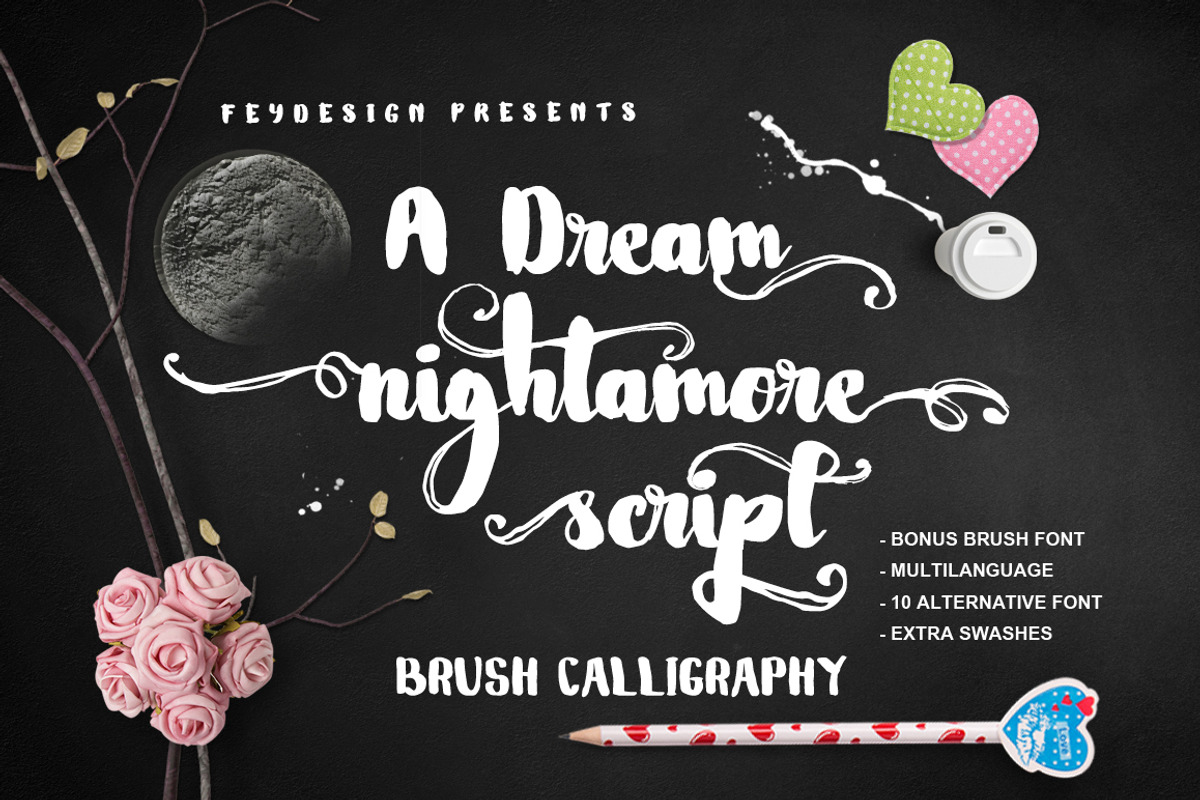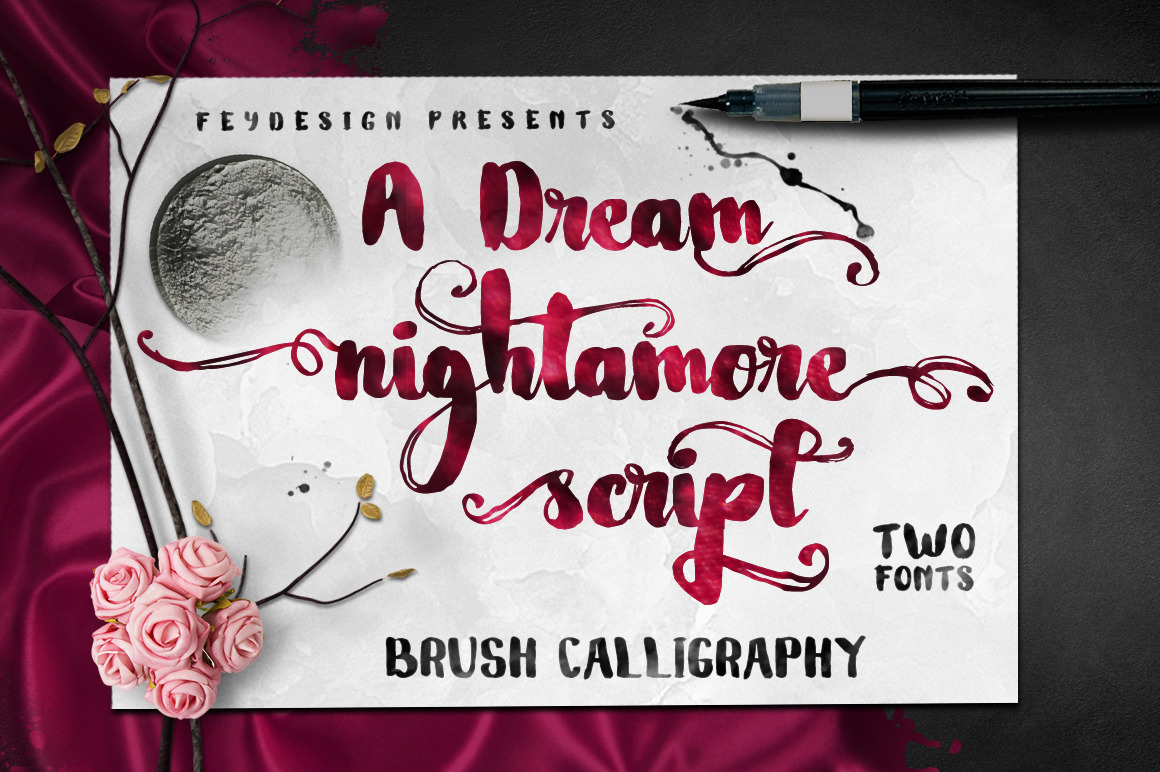
Nightamore Brush + Bonus Font
Nightamore Brush Calligraphy (Bonus Font)
This is Handrawn Brush Font, Modern Vintage Calligraphy style, Suitable for design, element design, wedding, event, t-shirt, logo, badges, sticker, and awesome work, etc...
BONUS Wowangle Sans Brush Font
Combination alternative ligature fonts
Standard Ligatures, Stylistic Set, Multilanguage Characters
Modern Calligraphy Typeface
Unique style fonts
Ready to use "Nightamore Script" for Awesome Work